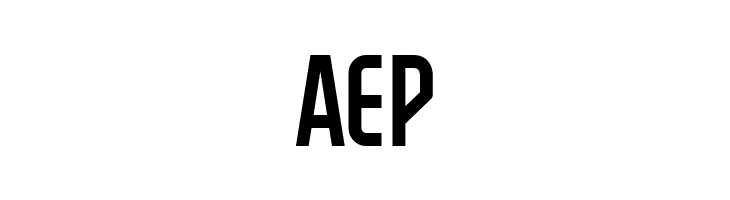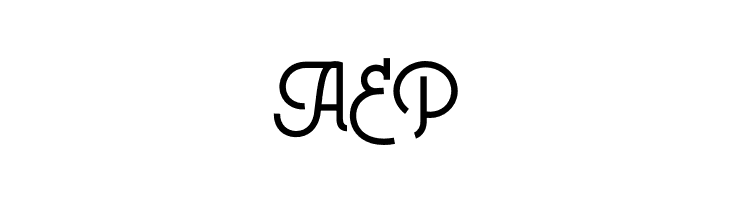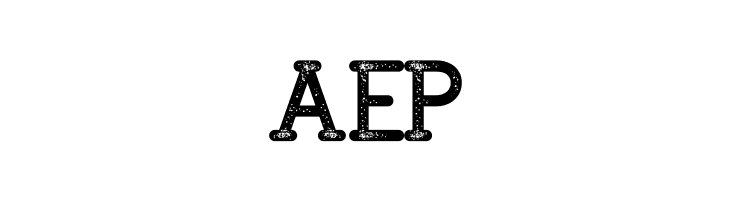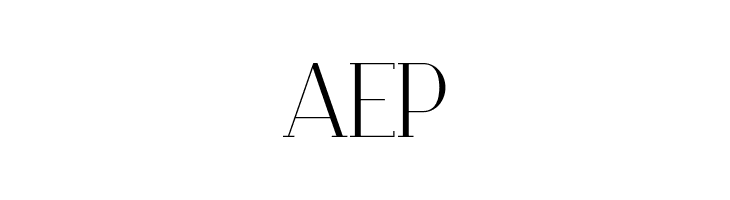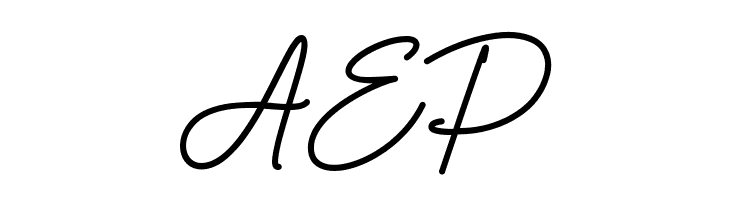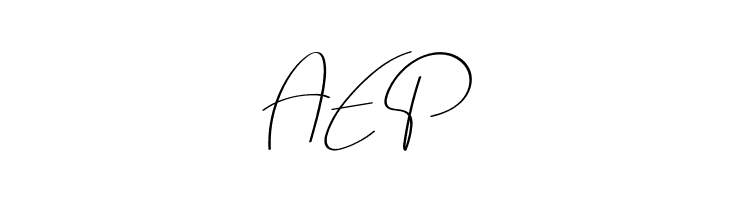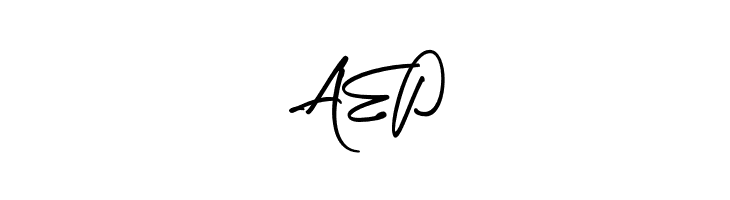
A bold, rough-textured font with a vintage, hand-crafted feel.
A bold, distressed font with a vintage, stamp-like appearance.
A classic serif font with high contrast and elegant, elongated characters.
A bold, condensed sans-serif font with a modern, professional appearance.
A modern cursive font with elegant, flowing strokes.
A bold, playful font with rounded characters and a dynamic style.
A bold, textured font with a vintage, distressed style.
A cursive, calligraphic font with elegant, flowing strokes.
A dynamic, cursive script font with a handwritten feel.
A decorative and flowing script-like font with a modern vintage appeal.